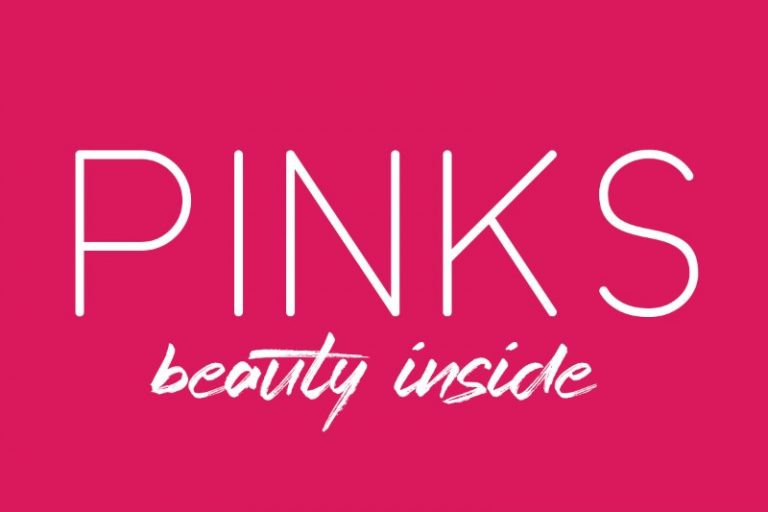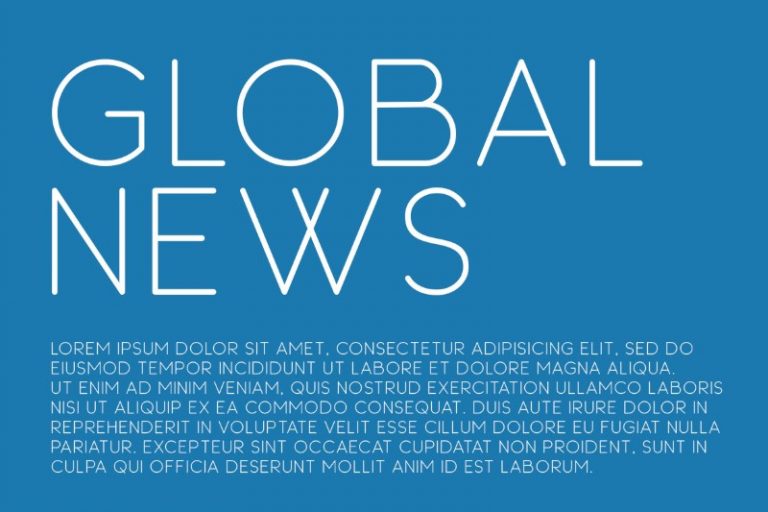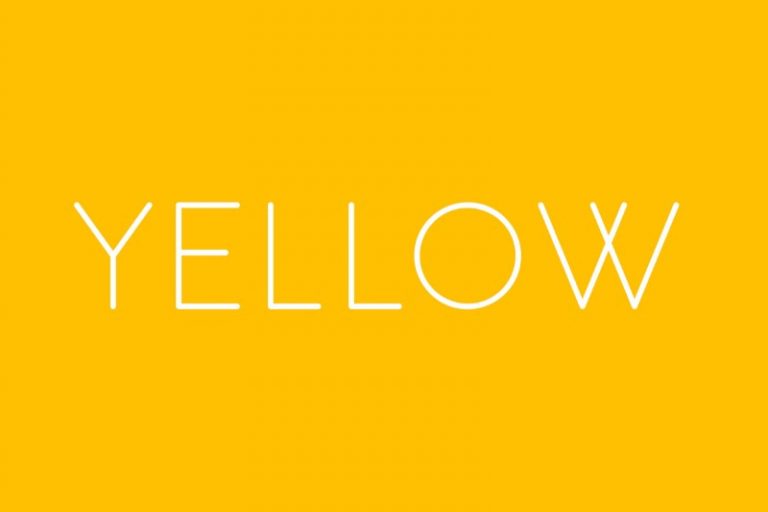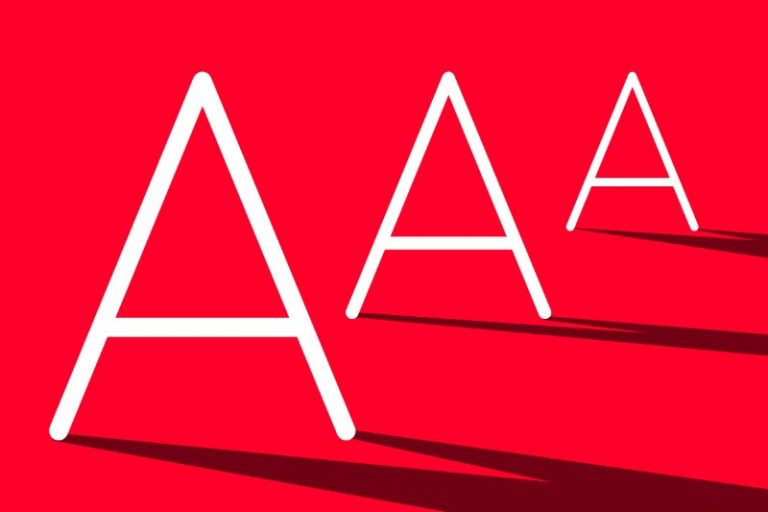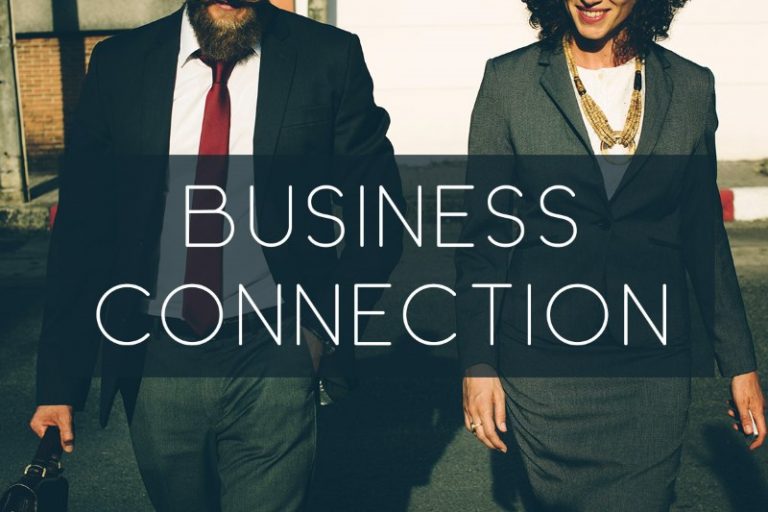
HALVA
Halva is professional rounded font. It is perfect for business purpose like business card design, magazine, advertisement, fashion, web, book cover, poster.